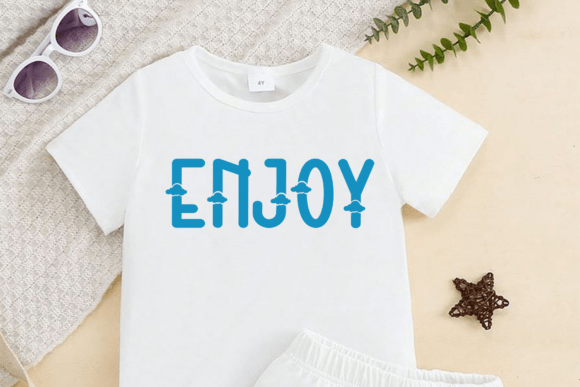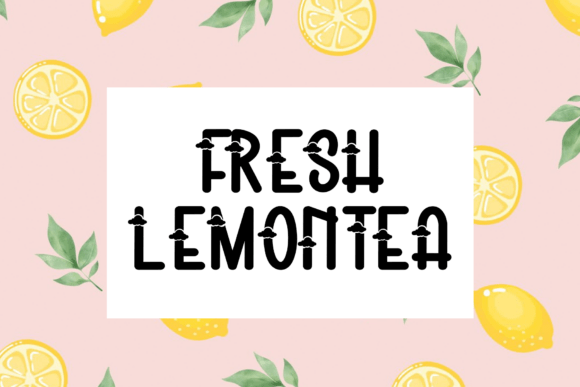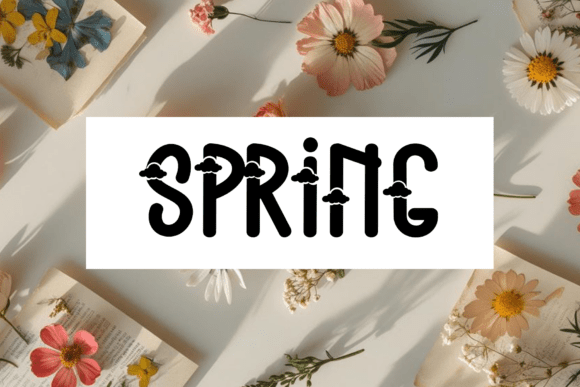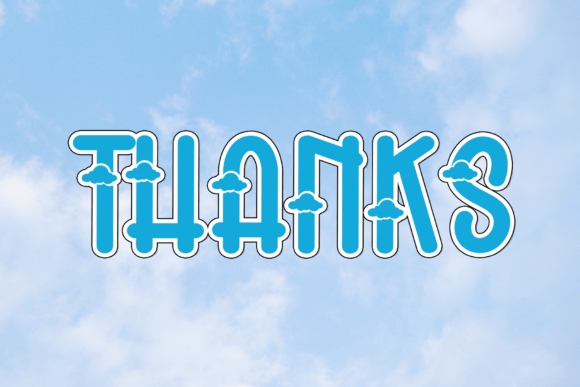
Introducing Blue Cloud Font: Elevate Your Designs with a Whimsical Touch
Are you looking for a font that can add a playful and imaginative touch to your creative projects? Look no further than Blue Cloud Font, a bold and airy display font that brings the magic of the sky to your designs. With its bubbly letterforms and charming cloud silhouettes, this typeface is perfect for designers and crafters who want to inspire wonder and lighthearted joy.
The Characteristics of Blue Cloud Font
Blue Cloud Font is characterized by its bold, bubbly letterforms and charming cloud silhouettes integrated directly into the characters. The font’s thick, rounded structure provides excellent legibility while maintaining a playful, “floating” presence. This unique combination of features makes Blue Cloud Font an exceptional choice for a variety of design projects, from children’s apparel and nursery wall art to creative storytelling, toy packaging, and vibrant social media graphics.
Perfect for Whimsical and Dreamy Designs
Blue Cloud Font is designed to capture a whimsical and dreamy aesthetic, making it perfect for designers and crafters who want to create playful and imaginative designs. The font’s airy and lighthearted feel is sure to evoke a sense of wonder and joy in your audience. Whether you’re designing for children or adults, Blue Cloud Font is an excellent choice for any project that requires a touch of magic and whimsy.
Use Cases for Blue Cloud Font
Blue Cloud Font is an incredibly versatile typeface that can be used in a variety of design projects, including:
- Children’s Apparel: Add a playful touch to your children’s clothing designs with Blue Cloud Font. The font’s bold and bubbly letterforms are sure to delight kids and parents alike.
- Nursery Wall Art: Create beautiful and imaginative nursery wall art with Blue Cloud Font. The font’s whimsical feel is perfect for nursery decor, and its thick, rounded structure ensures that it will be easy to read from a distance.
- Creative Storytelling: Bring your stories to life with Blue Cloud Font. The font’s airy and lighthearted feel is perfect for children’s books, comics, and other creative storytelling projects.
- Toy Packaging: Make your toy packaging stand out with Blue Cloud Font. The font’s playful and imaginative feel is sure to appeal to kids and parents alike.
- Vibrant Social Media Graphics: Add a touch of whimsy to your social media graphics with Blue Cloud Font. The font’s bold and bubbly letterforms are sure to grab attention and inspire engagement.
Why Choose Blue Cloud Font?
So why choose Blue Cloud Font for your design projects? Here are just a few reasons:
- Unique and Playful Design: Blue Cloud Font features a unique and playful design that is sure to stand out in any design project.
- Excellent Legibility: The font’s thick, rounded structure provides excellent legibility, making it easy to read in a variety of contexts.
- Whimsical and Dreamy Aesthetic: Blue Cloud Font captures a whimsical and dreamy aesthetic that is perfect for designers and crafters who want to inspire wonder and lighthearted joy.
- Versatile: Blue Cloud Font is an incredibly versatile typeface that can be used in a variety of design projects, from children’s apparel and nursery wall art to creative storytelling, toy packaging, and vibrant social media graphics.
In conclusion, Blue Cloud Font is an imaginative, airy, and high-impact display font that is perfect for designers and crafters who want to add a touch of whimsy and wonder to their design projects. With its bold, bubbly letterforms and charming cloud silhouettes, this typeface is sure to inspire joy and creativity in your audience. Whether you’re designing for children or adults, Blue Cloud Font is an excellent choice for any project that requires a playful and imaginative touch.